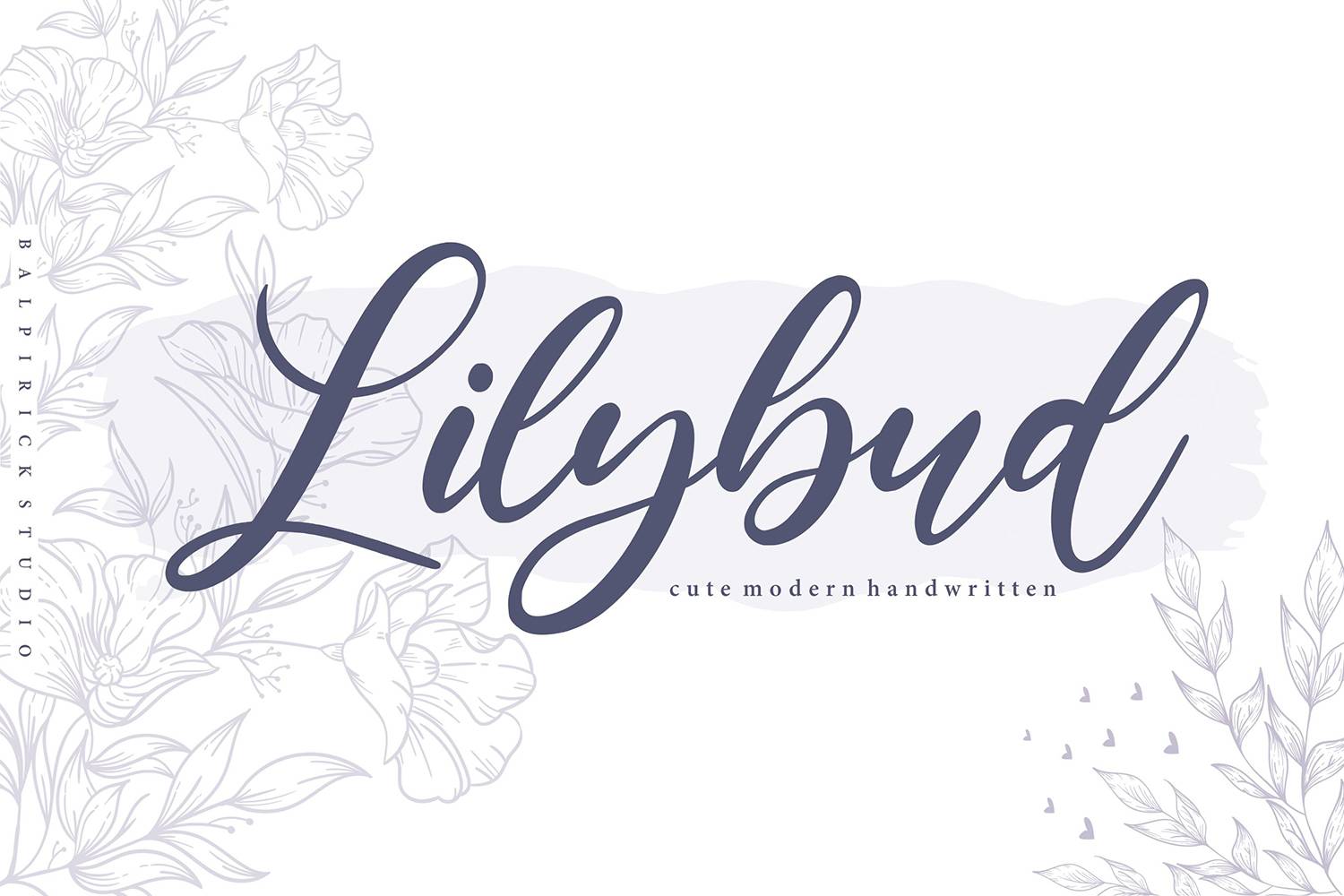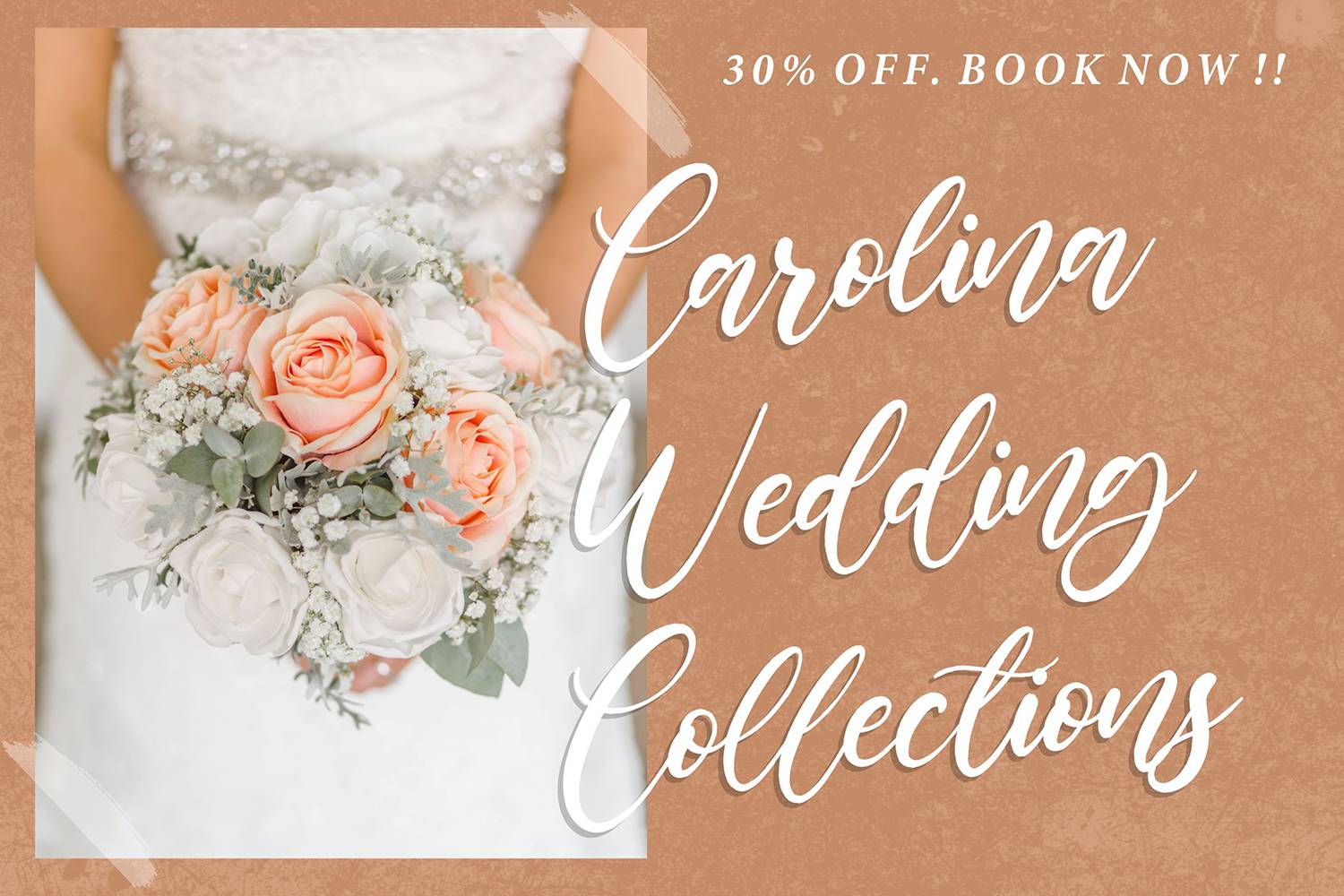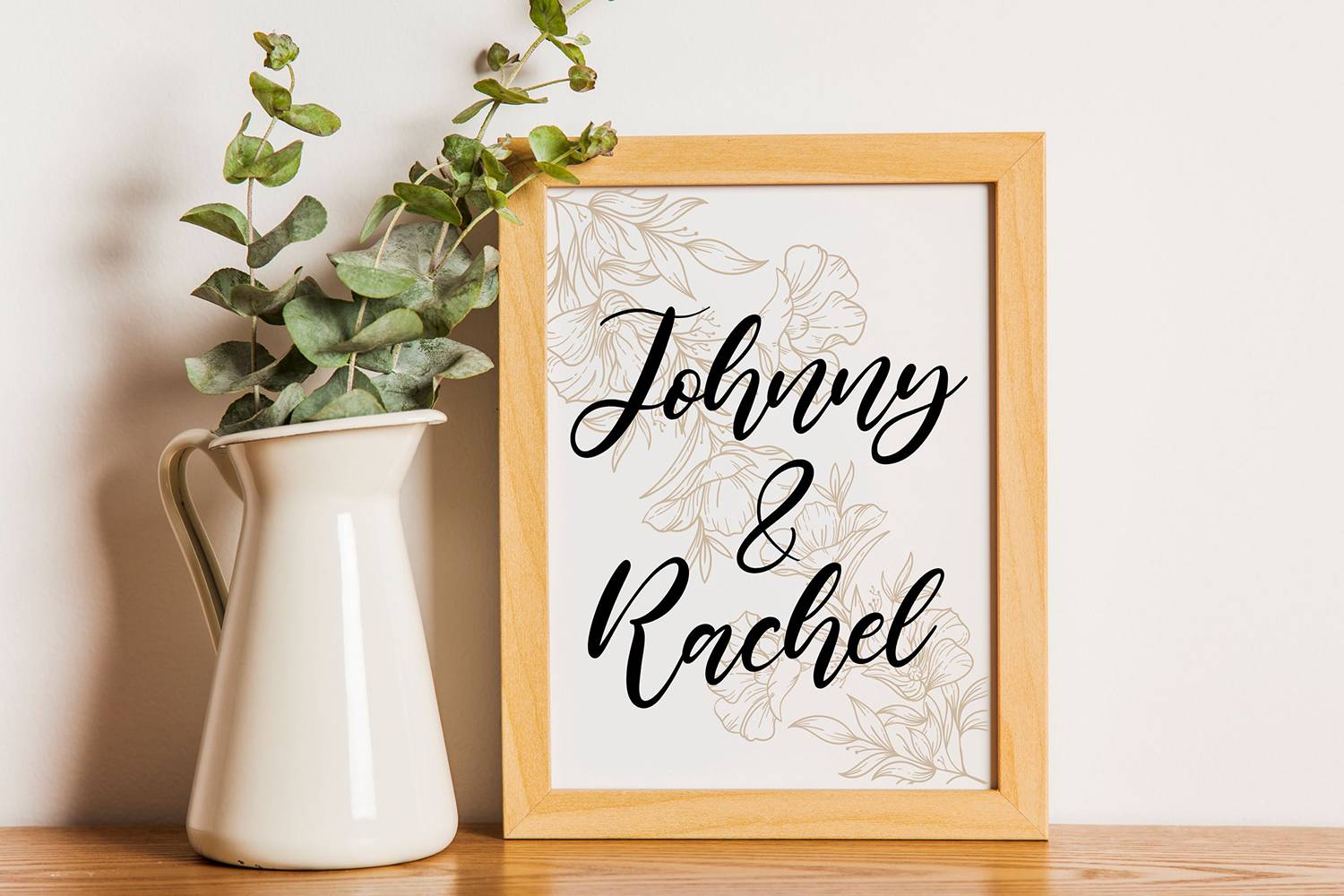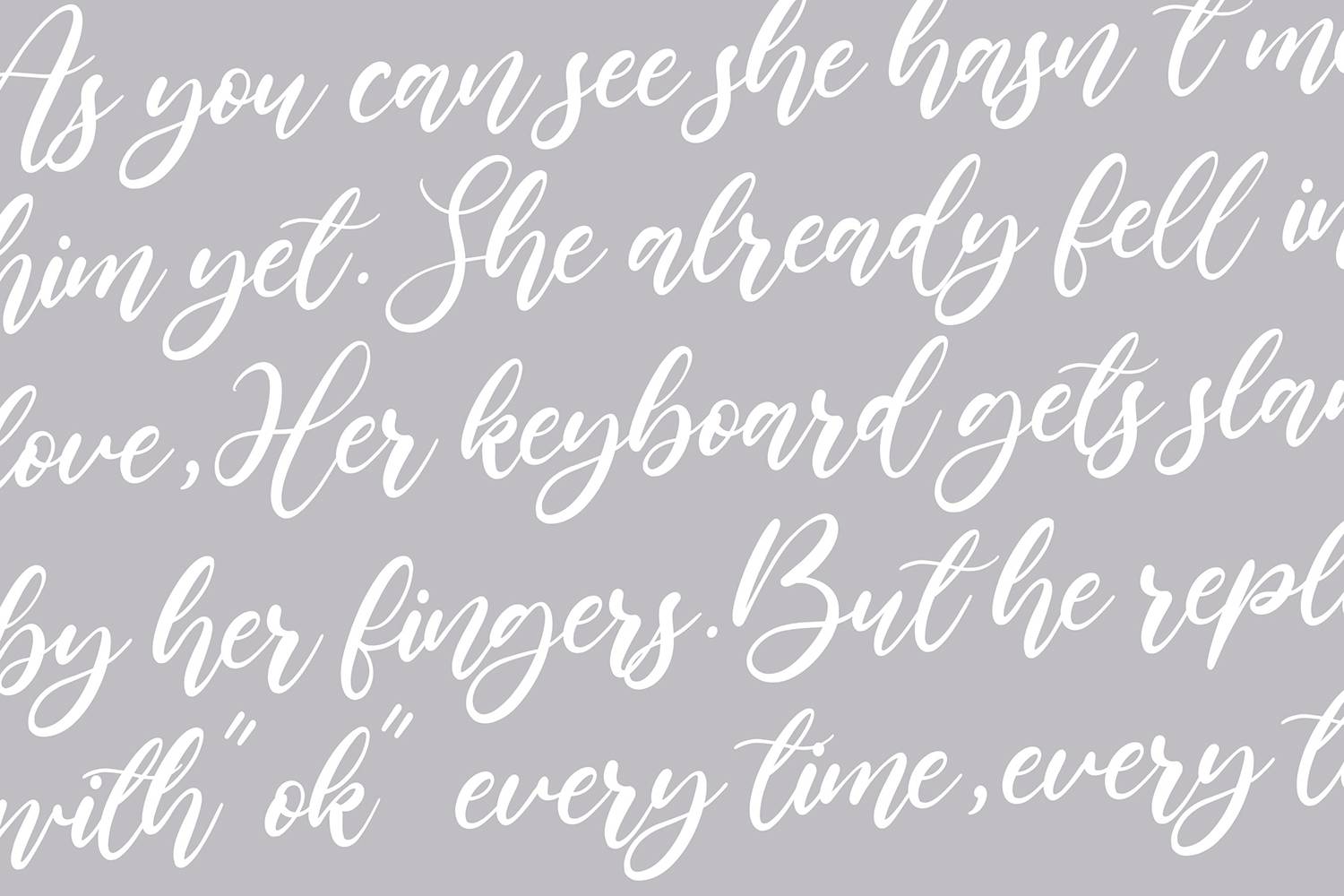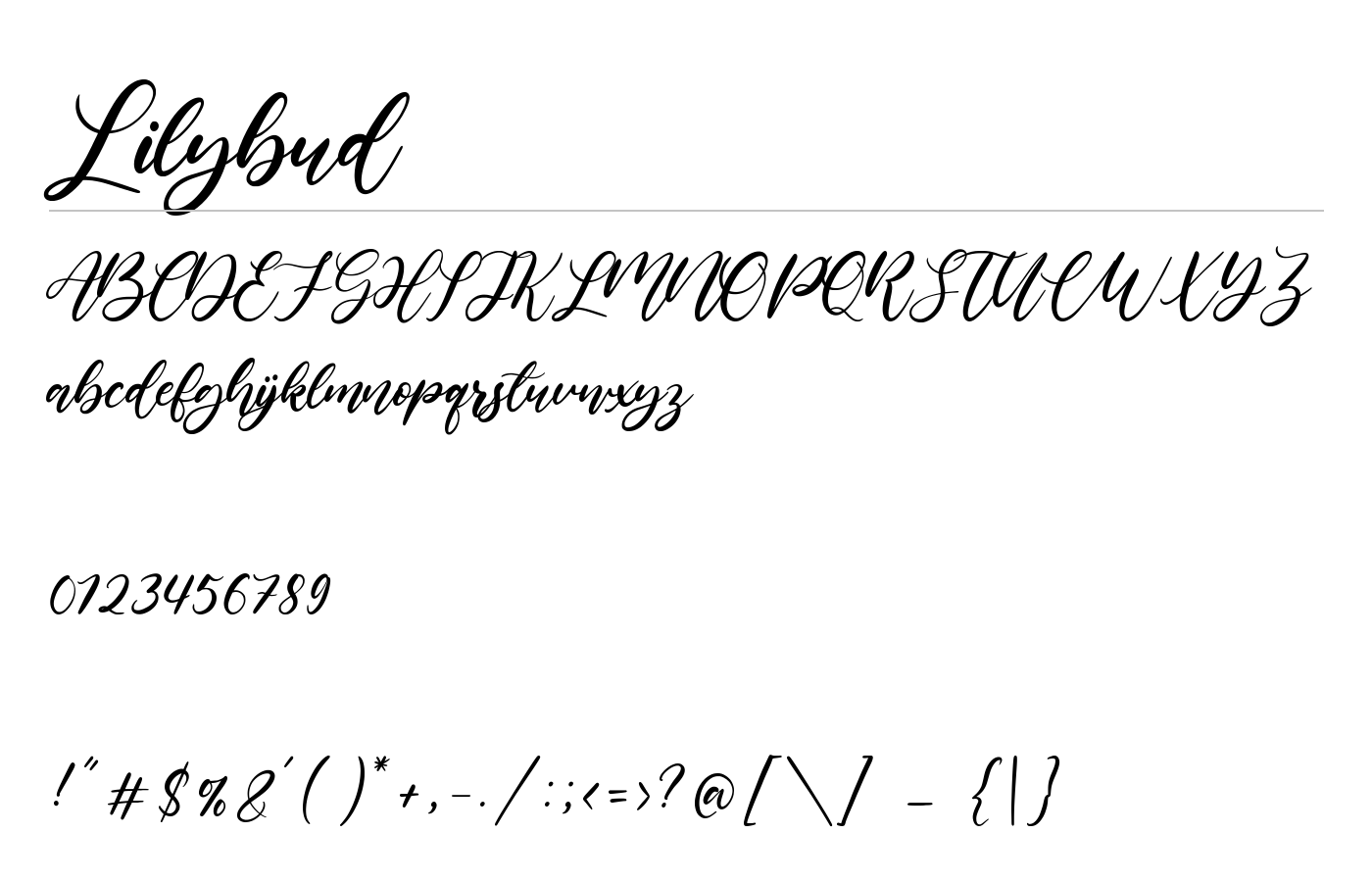
Lilybud is an elegant script font with flowing, connected letterforms that exude a graceful and romantic feel. Its smooth, moderately varied strokes and delicate curves make it perfect for wedding invitations, branding, and feminine or luxury designs where a personal, handwritten touch is desired. This font’s stylish and readable characters bring charm and sophistication to headlines, logos, and decorative text.
Lilybud Font
About Lilybud Font